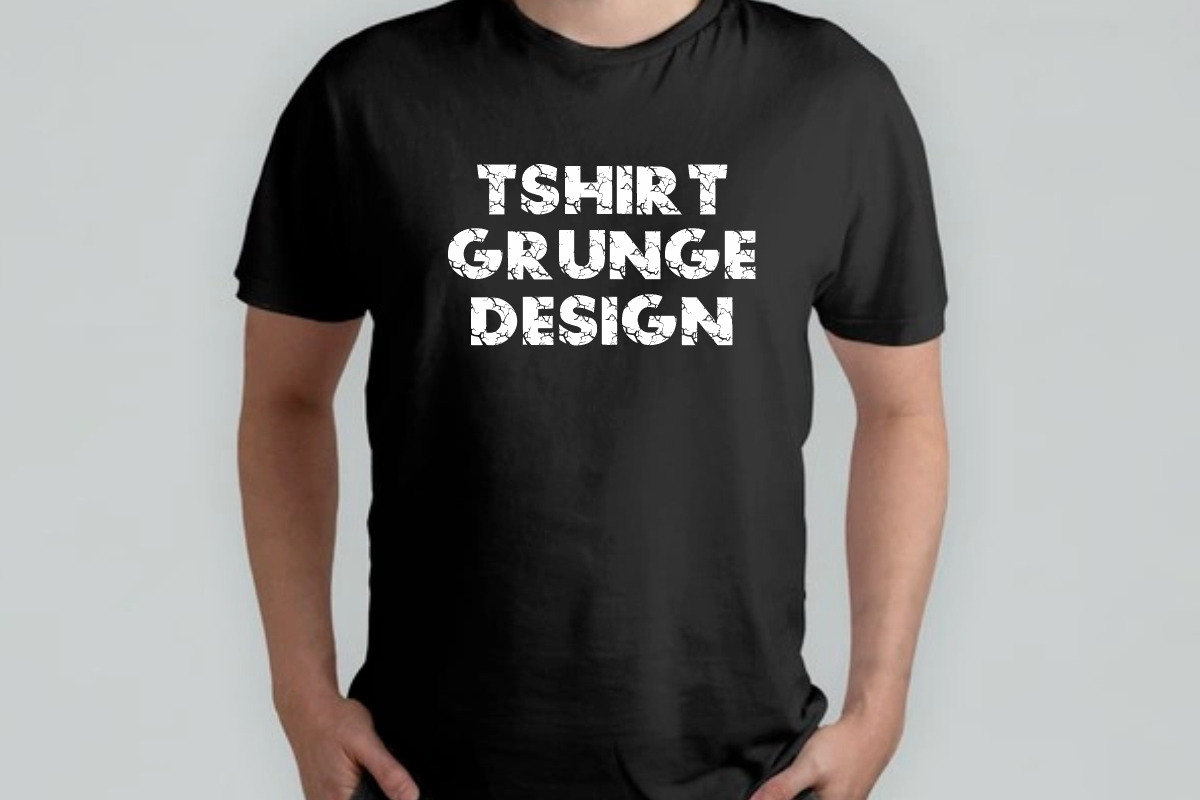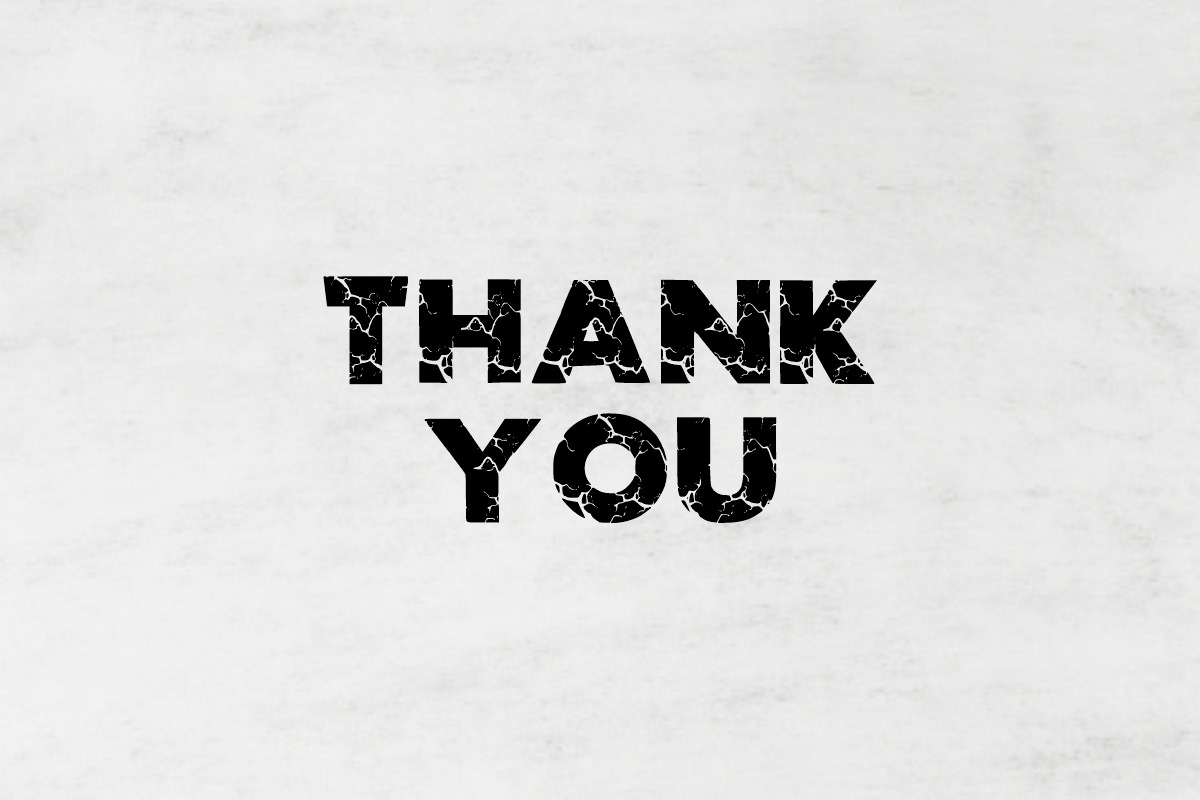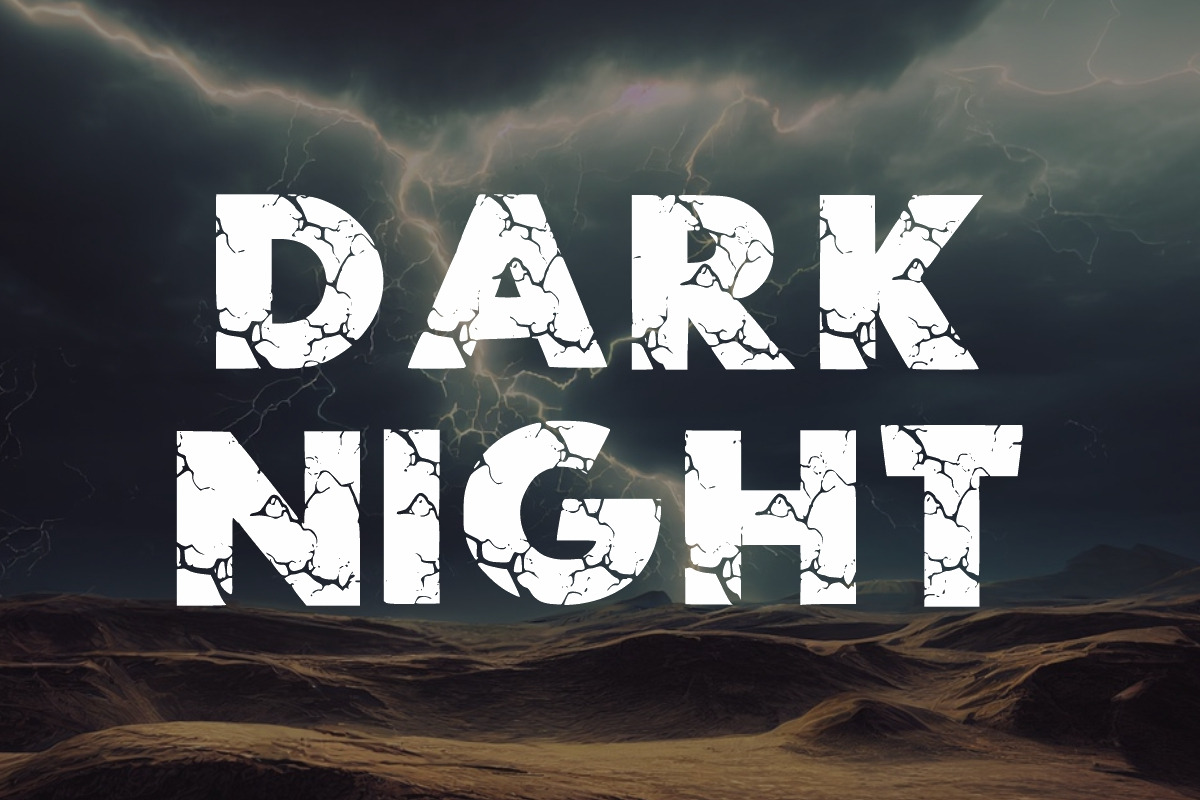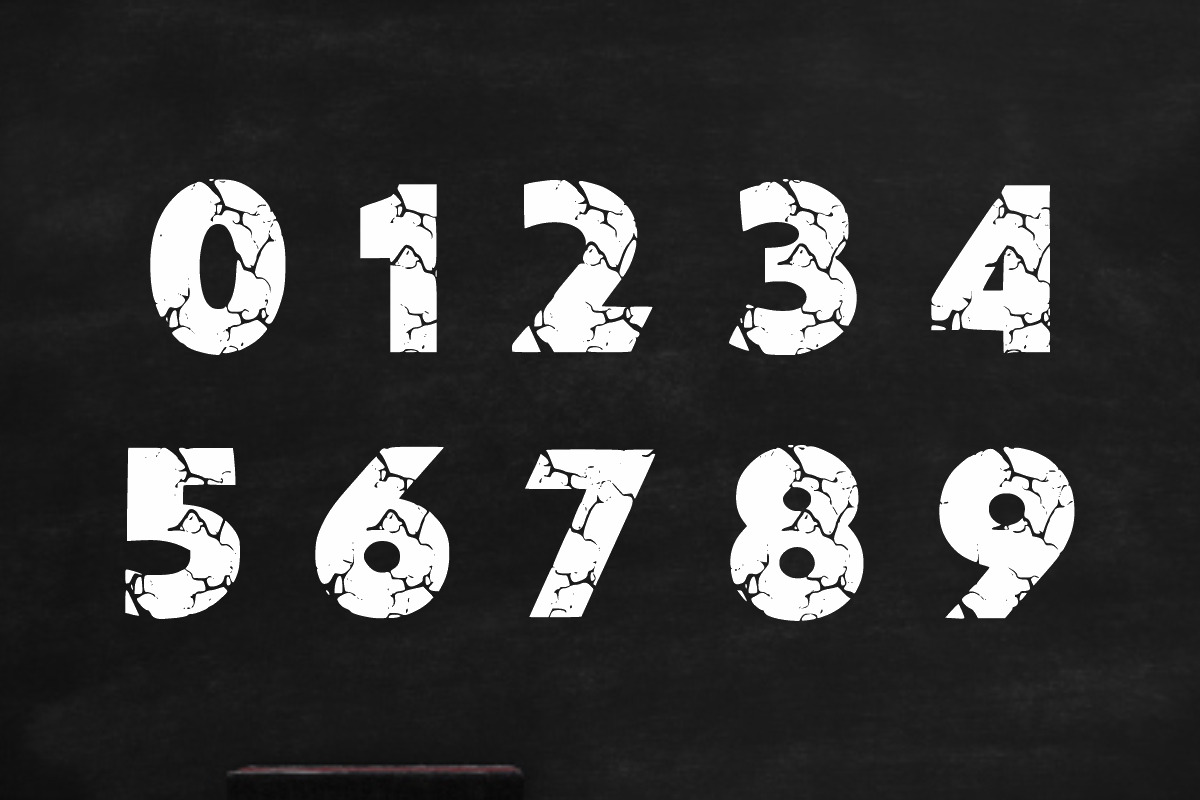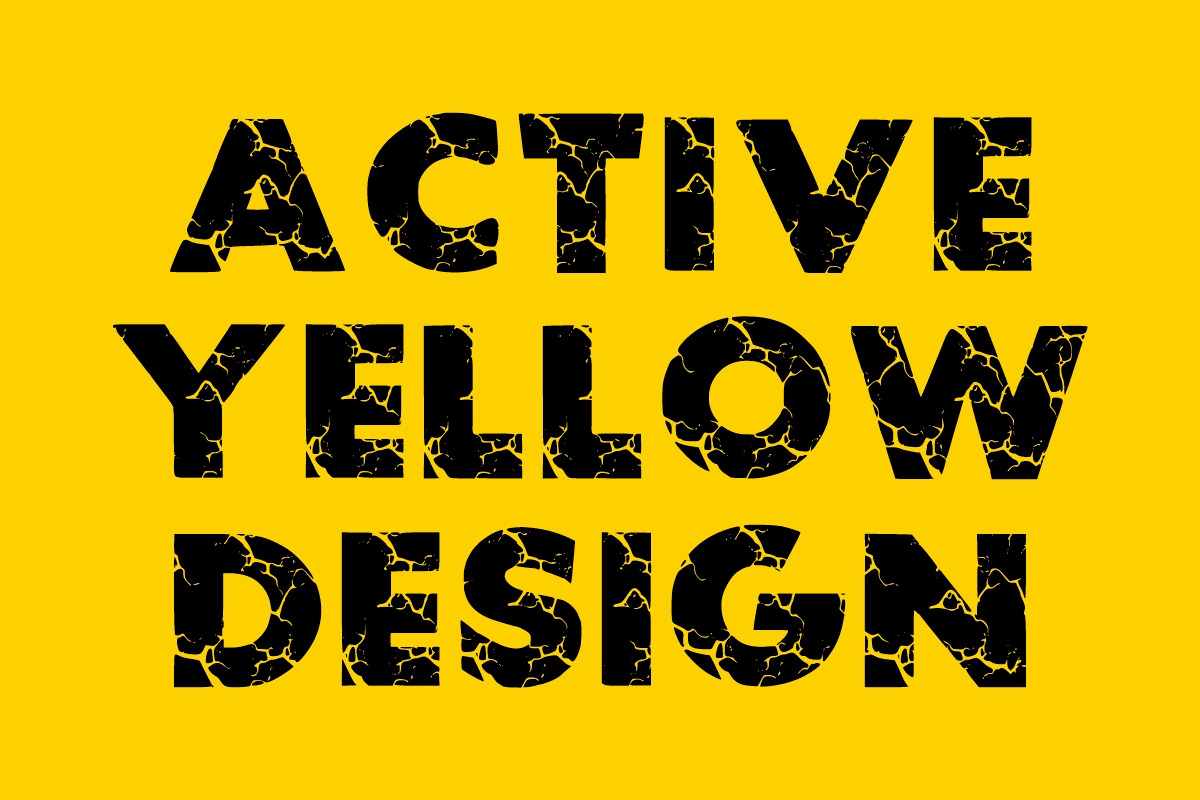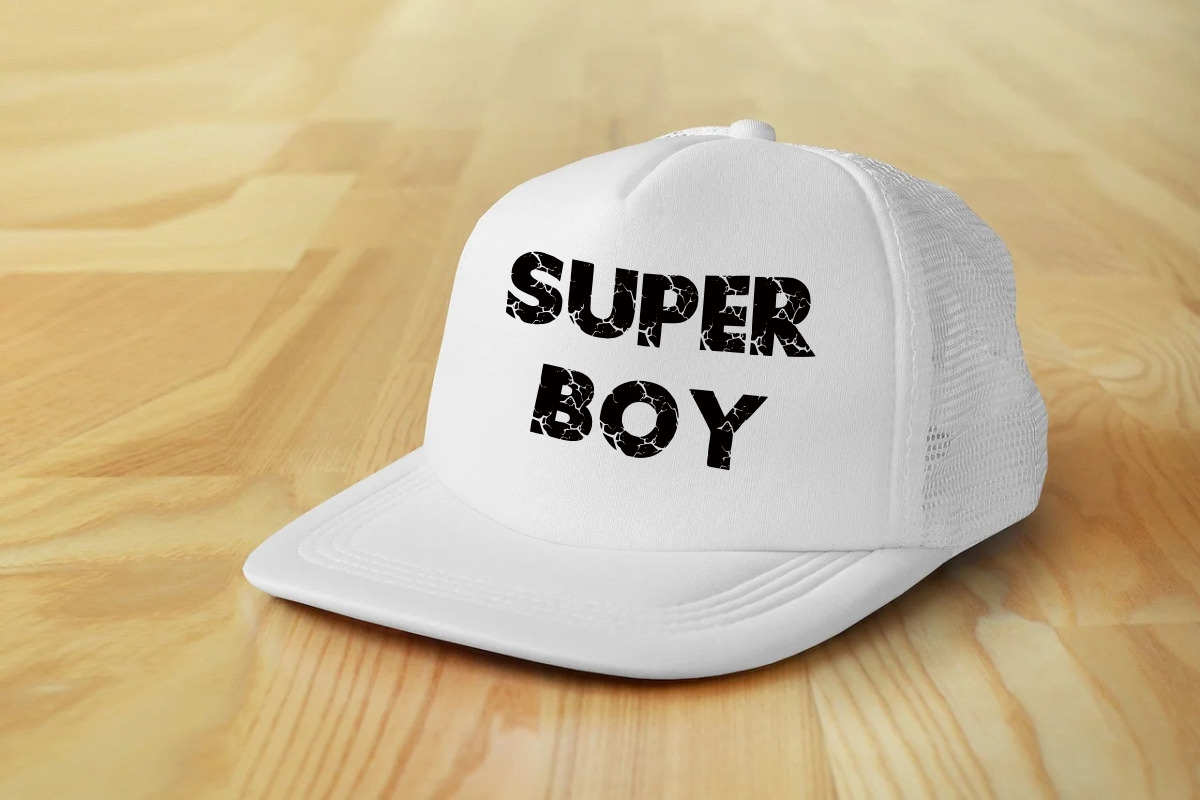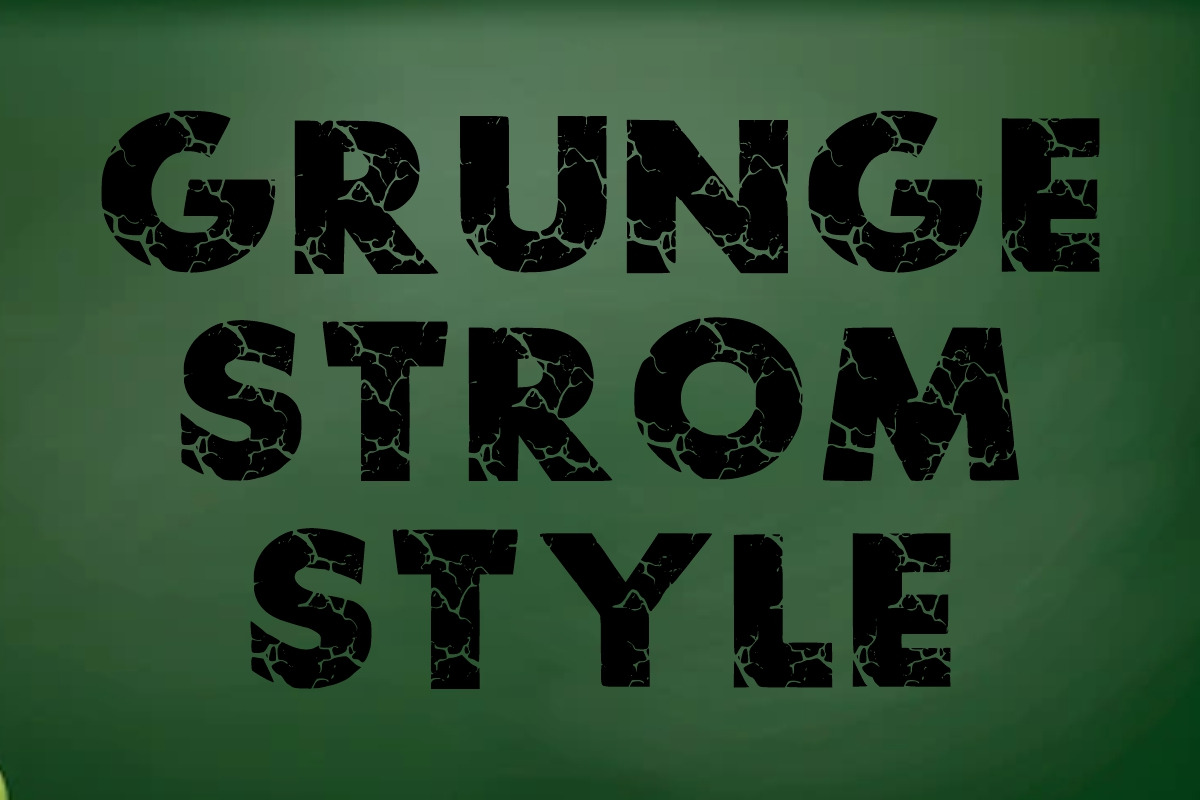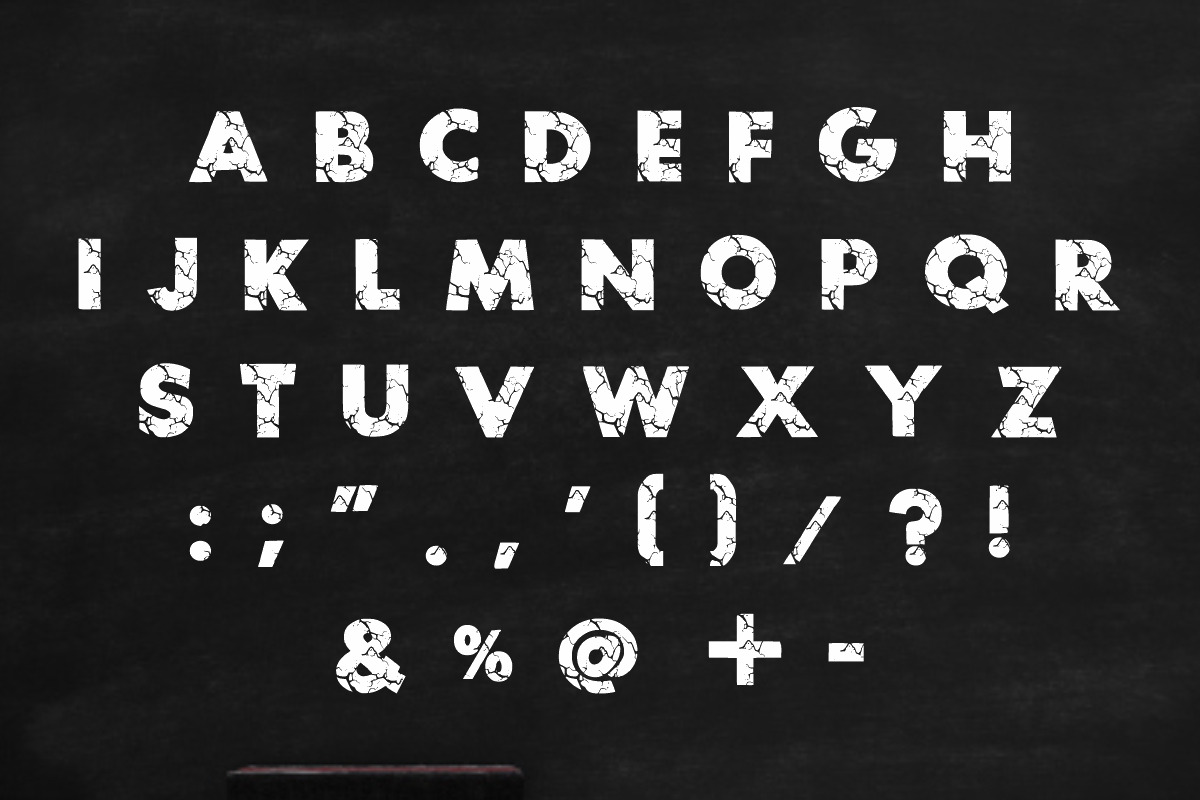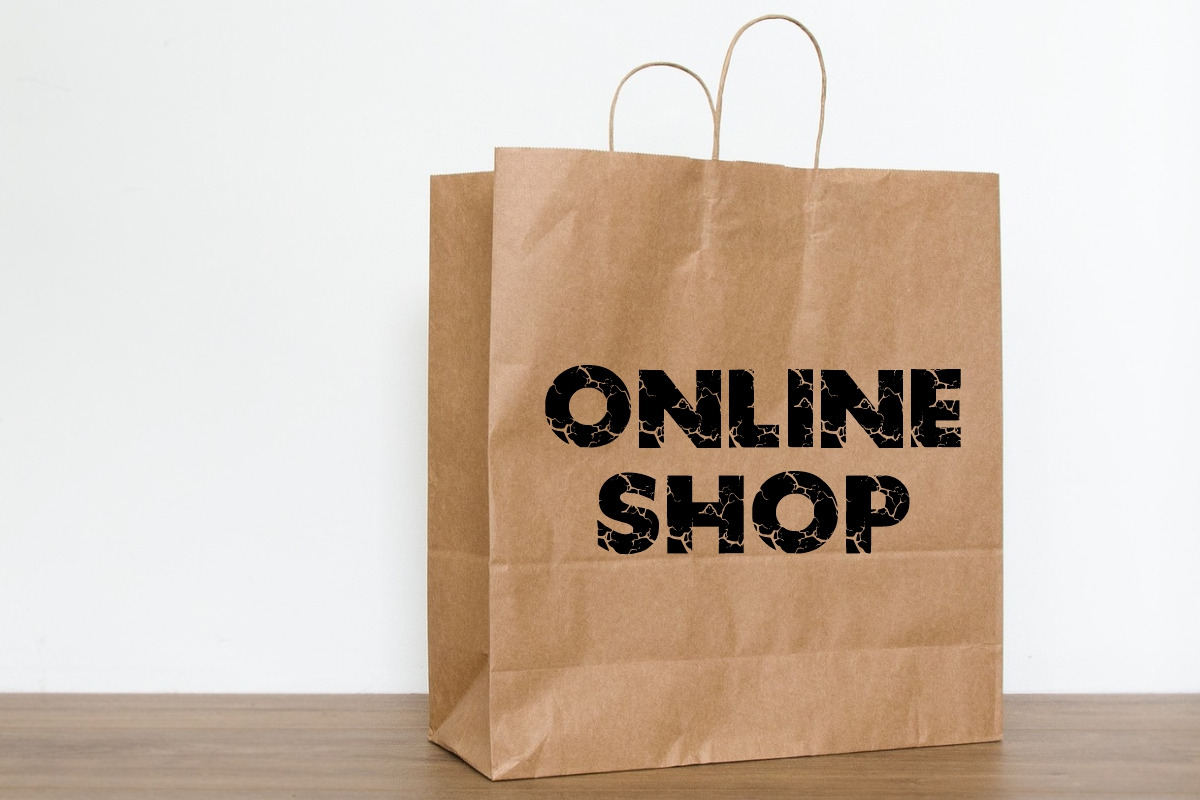
Thunder Light
Thunder Light is a Thunder Grunge display font, perfect for various projects such as blog posts, logos, branding, ads, invitations, greeting cards, planners, photo albums, decorations, and much more.